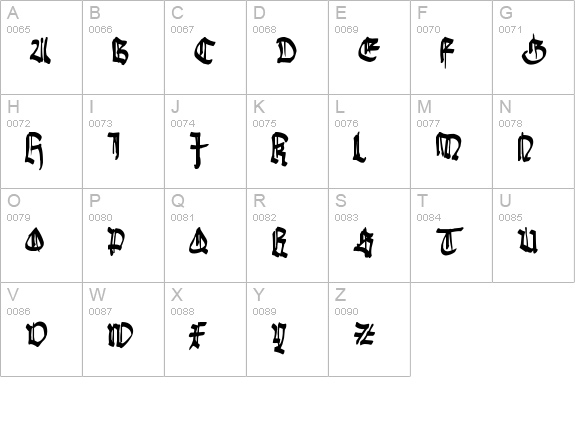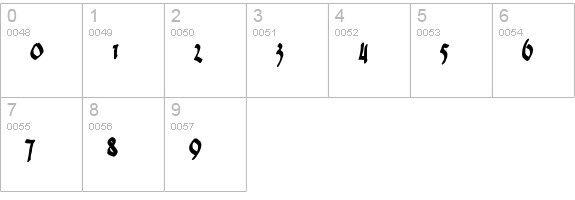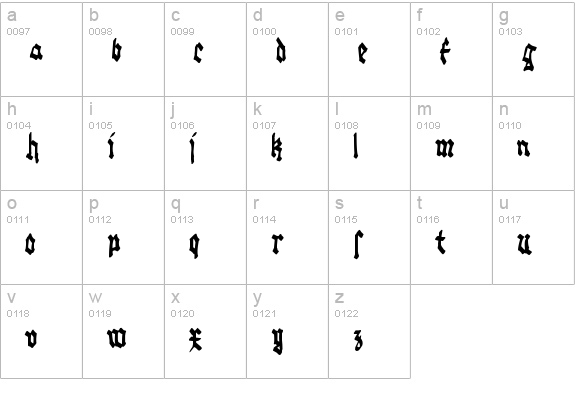
Gothic Bozo Font Details
Introducing Gothic Bozo font - a captivating and mysterious typeface that exudes gothic charm with a touch of whimsy. This unique font features intricate details and ornate flourishes that add a sense of elegance and drama to any design project. Gothic Bozo is perfect for creating eye-catching headlines, invitations, posters, and more. The best part? Gothic Bozo font is completely free to download at FontsMarket.com. Simply visit the website and add this stunning font to your collection with just a few clicks. Whether you're a seasoned designer looking for a fresh new font or a novice exploring the world of typography, Gothic Bozo is sure to inspire and delight. Don't miss out on this opportunity to enhance your designs with this one-of-a-kind font - download Gothic Bozo today and let your creativity soar.